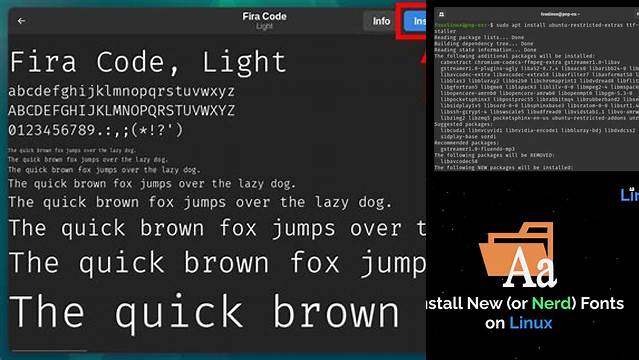
Install Nerd Fonts On Pop!_OS: A Step-by-Step Guide
Are you looking to spice up your Pop!_OS terminal and code editor with awesome-looking fonts? Look no further! Nerd Fonts are the way to go. These fonts are specially patched to include a plethora of glyphs, icons, and symbols, making your development environment not only functional but also visually appealing. This guide will walk you through the process of installing Nerd Fonts on Pop!_OS, step by step. We'll cover everything from downloading the fonts to configuring your terminal and code editor to use them. So, let's dive in and _get those Nerd Fonts rocking on your Pop!OS system!
What are Nerd Fonts?
Before we jump into the installation process, let's understand what Nerd Fonts are and why they're so popular among developers and terminal enthusiasts. Nerd Fonts are essentially fonts that have been patched to include a large number of glyphs (icons) from popular icon sets, such as Font Awesome, Octicons, and Devicons. This means you can use these icons directly in your terminal, code editor, or any other application that supports fonts. Imagine having cool icons for your Git status, file types, and even your command prompts! Nerd Fonts make your terminal not only more functional but also visually engaging. They provide a quick visual representation of information, enhancing your workflow and making your coding environment more enjoyable. With a wide variety of styles and weights available, Nerd Fonts offer a customizable experience to suit your individual preferences and needs. They bridge the gap between functionality and aesthetics, making your terminal and code editor a personalized space that reflects your style and enhances productivity. The power of Nerd Fonts lies in their ability to transform mundane text-based interfaces into dynamic and visually appealing environments, empowering you to work more efficiently and creatively.
Nerd Fonts come in various styles and weights, catering to different preferences and needs. Whether you prefer a monospaced font for coding or a proportional font for general use, there's a Nerd Font out there for you. Some popular Nerd Fonts include Hack Nerd Font, Fira Code Nerd Font, and Source Code Pro Nerd Font. Each of these fonts has its unique characteristics and visual appeal, allowing you to choose the one that best suits your taste and workflow. Nerd Fonts also support a wide range of languages and character sets, ensuring compatibility across different systems and applications. The extensive collection of glyphs and icons included in Nerd Fonts covers a multitude of categories, from programming languages and frameworks to file types and operating system symbols. This comprehensive coverage makes Nerd Fonts a versatile choice for any developer or terminal user looking to enhance their visual experience and productivity. By installing and configuring Nerd Fonts, you're not just adding fonts; you're unlocking a world of possibilities for customization and visual communication within your digital workspace.
Step 2: Extract the Font Files
Once you've downloaded the Nerd Font ZIP file, the next step is to extract the font files. You can do this using the unzip
command in your terminal. Make sure you have the unzip
utility installed on your system. If not, you can install it using your distribution's package manager. For Pop!_OS, you can use the following command:
These commands update the package list and then install the unzip
utility. With unzip
installed, you can now extract the font files. Using the same example as before, navigate to the directory where you downloaded the FiraCode.zip
file and run the following command:
This command extracts the contents of the ZIP file into the current directory. You'll see a bunch of .ttf
(TrueType Font) and .otf
(OpenType Font) files being extracted. These are the actual font files that we'll install in the next step. It's like unpacking a treasure chest full of awesome new fonts! Each of those files represents a different style or weight of the Fira Code Nerd Font, giving you plenty of options to choose from. Now that we've got these font files extracted, we're one step closer to having a killer-looking terminal. It's all about making your coding environment a place you enjoy being, and these fonts are going to help big time. So, let's keep moving forward and get these fonts installed. Your terminal is about to get a serious upgrade, and you're the one making it happen. Let's go!
Remember, the world of customization is vast and exciting. There are endless possibilities for tweaking and personalizing your coding environment to suit your individual preferences and needs. Nerd Fonts are just one piece of the puzzle, but they can make a huge difference in how you feel about your workspace. So, keep exploring, keep experimenting, and keep making your coding environment a place where you love to be. And if you ever need a refresher on how to install Nerd Fonts, just come back to this guide – it'll be here waiting for you. Happy coding, and may your fonts always be stylish and your glyphs always render perfectly!